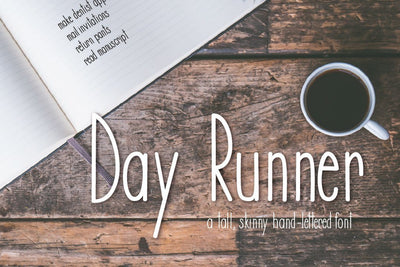
Day Runner - a tall skinny hand-lettered font
Day Runner Font
Introducing Day Runner Font, a tall, skinny, hand-written font. It's perfect for all of your modern designs for t-shirts, tote bags, mugs, home decor, and more! It pairs well with many modern script fonts.